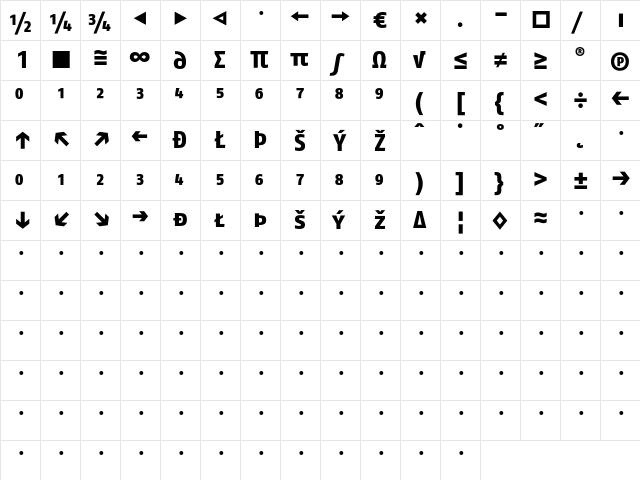
FagoNoExb Regular
Design Context for FagoNoExb Typeface
FagoNoExb takes a measured approach to typography — its balanced proportions and neutral character make it a reliable workhorse for both digital and print work.